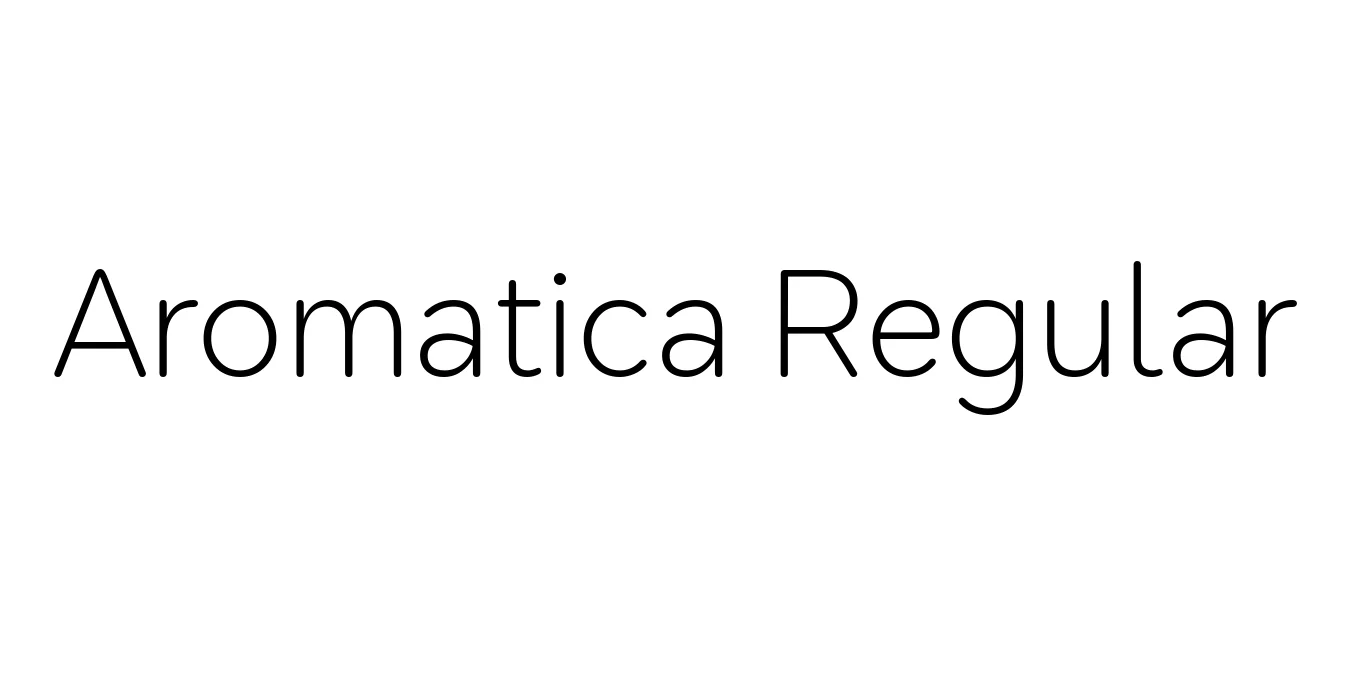
Aromatica Regular
Designed by Manuel Corradine & Sergio Rodríguez
| Font Name | Aromatica |
| Category | Rounded Sans-Serif |
| Designer | Manuel Corradine & Sergio Rodríguez |
| Similar Fonts | VAG Rounded, Quicksand, Comfortaa, Proxima Soft |
Aromatica Regular is a warm and inviting rounded sans-serif typeface designed by Manuel Corradine and Sergio Rodríguez. Released through the Corradine Fonts foundry, this typeface was crafted to provide a soft, friendly aesthetic that departs from the coldness often found in traditional geometric designs. The Regular weight serves as a balanced foundation for the entire family, offering high legibility and a harmonious visual rhythm that makes it suitable for both headlines and body text.
The design is characterized by its smooth rounded terminals and open apertures, which contribute to its organic and approachable feel. These features make it particularly effective in digital environments and print media where a human touch is necessary. It is frequently selected for projects in the wellness, culinary, and lifestyle sectors, as well as for user interfaces that aim to be accessible and welcoming to a broad audience.
Aromatica Regular Best Uses
Ideal for health, beauty, and organic product logos that require a soft touch.
Excellent for user-friendly mobile apps and approachable website interfaces.
Perfect for eco-friendly products, food labels, and children's items.
Great for social media campaigns and marketing materials targeting a modern audience.